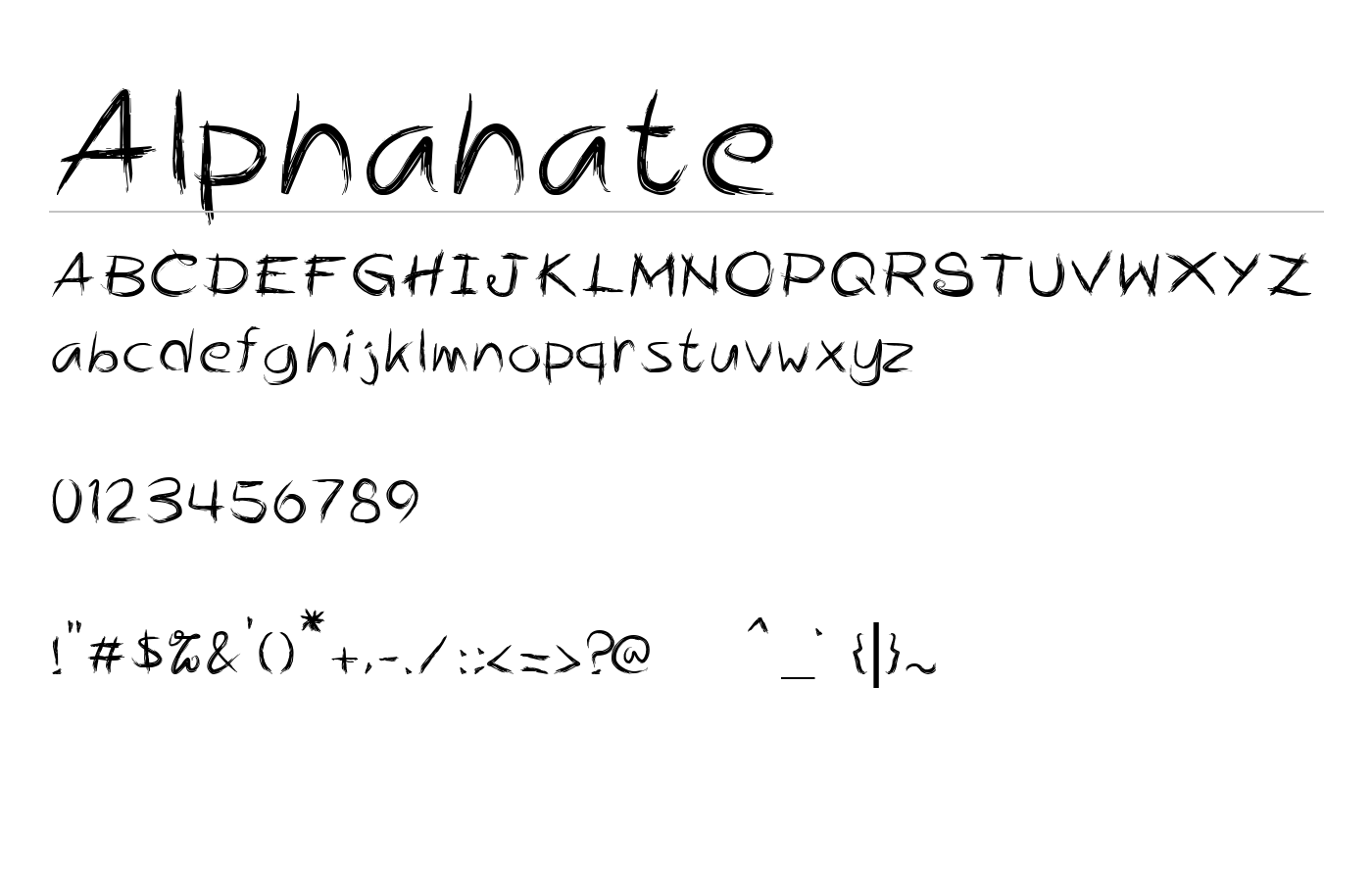
Alphahate is a distinctive handwritten-style font with a rough, sketchy texture that gives it an edgy, raw vibe. Its irregular strokes and quirky letterforms create a casual yet expressive personality, making it ideal for creative projects, posters, and branding that seek a bold, artistic, and unconventional look. This font works best when you want to add a personal, rebellious touch that stands out with character and spontaneity.
Alphahate Font